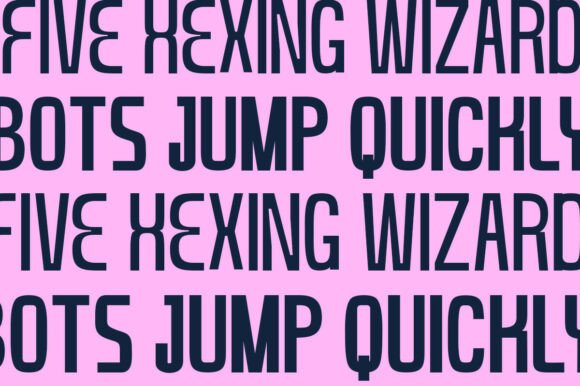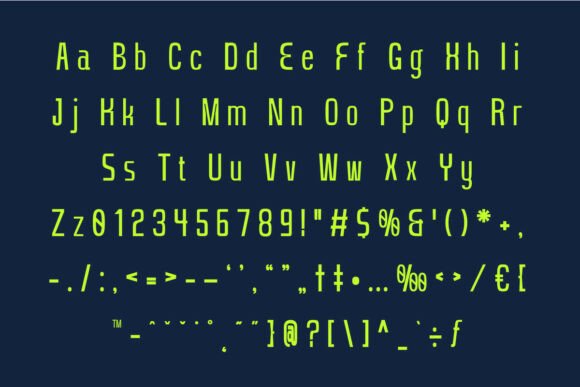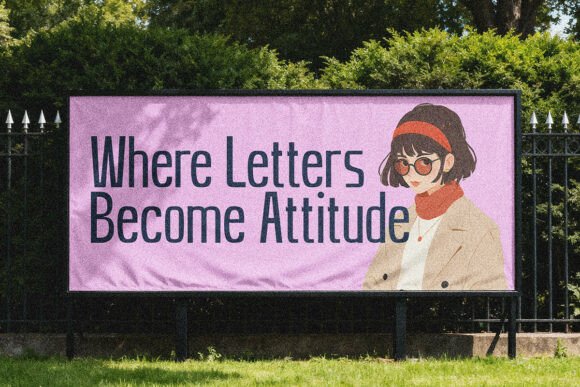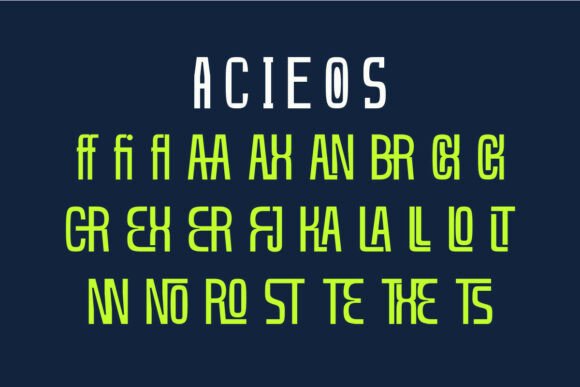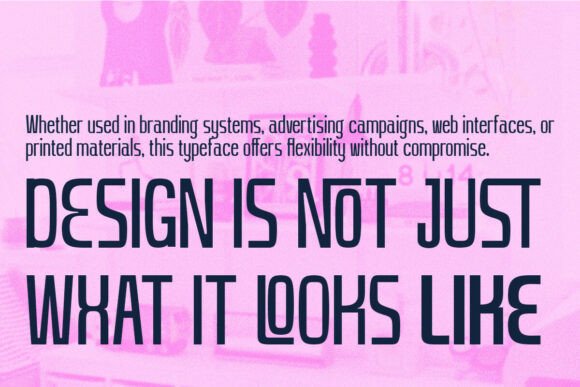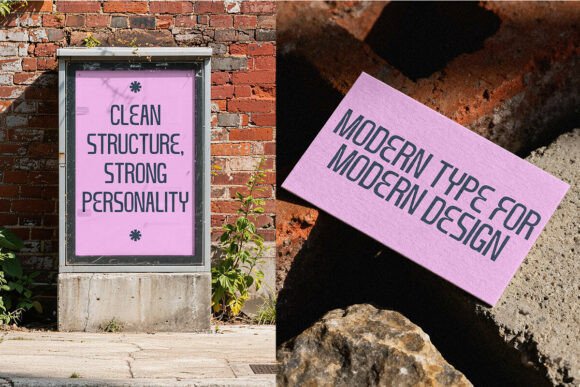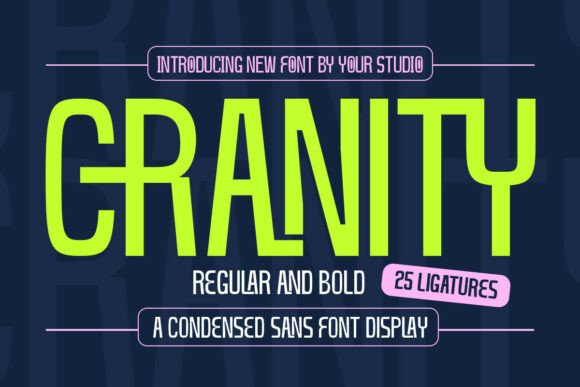
Cranity Font: Elevate Your Designs with Modern Condensed Typography
In the world of typography, finding the perfect font that balances style, readability, and versatility can be a daunting task. However, if you’re a designer seeking a modern, condensed sans serif display font that can elevate your creative projects, look no further than Cranity. Crafted to deliver strong, clean, and professional typography, Cranity is the ideal choice for contemporary designs that demand attention and sophistication.
What is Cranity Font?
Cranity is a thoughtfully designed font that boasts narrow proportions and bold letterforms, making it perfect for headlines, branding, posters, and modern layout designs where space efficiency and strong presence are crucial. Its minimalist and modern style allows it to work seamlessly across both digital and print media, making it suitable for a wide range of applications, including branding, editorial layouts, advertising, and promotional materials.
Key Features of Cranity Font
- Comprehensive character set: The font includes uppercase, lowercase, numbers, and punctuation, providing everything you need to create professional-looking text.
- Special alternates and ligatures: Cranity offers special alternates and ligatures, allowing you to add a touch of elegance and sophistication to your designs.
Why Choose Cranity Font?
Cranity is designed with the modern designer in mind. Its condensed sans serif style makes it perfect for projects where space is limited, but impact is essential. Whether you’re designing logos, posters, packaging, or marketing campaigns, Cranity ensures your typography stands out with a bold and modern look. Its excellent readability and clean lines make it easy to read, even at smaller sizes, making it suitable for a wide range of applications.
Applications of Cranity Font
Cranity’s versatility makes it an excellent choice for various design projects, including:
- Branding: Create a strong and memorable brand identity with Cranity’s bold and modern typography.
- Editorial layouts: Use Cranity to add a touch of sophistication and elegance to your editorial designs, such as magazines, newspapers, and blogs.
- Advertising: Make your advertisements stand out with Cranity’s attention-grabbing typography and bold letterforms.
- Promotional materials: Use Cranity to create eye-catching promotional materials, such as brochures, flyers, and posters.
Tips for Using Cranity Font
To get the most out of Cranity, here are a few tips:
- Experiment with font sizes: Cranity’s condensed style makes it perfect for headlines and titles, but it can also be used for body text. Experiment with different font sizes to find the perfect balance for your design.
- Play with color: Cranity’s clean lines and bold letterforms make it easy to read, even in a variety of colors. Experiment with different color schemes to find the one that works best for your design.
- Mix and match: Don’t be afraid to mix and match Cranity with other fonts to create a unique and visually appealing design.
In conclusion, Cranity is a modern condensed sans serif display font that is perfect for designers seeking a strong, clean, and professional typography solution. Its narrow proportions, bold letterforms, and excellent readability make it suitable for a wide range of applications, from branding and editorial layouts to advertising and promotional materials. With its comprehensive character set, special alternates and ligatures, and cross-platform compatibility, Cranity is an excellent choice for any design project. So why wait? Download Cranity today and elevate your designs with modern condensed typography.